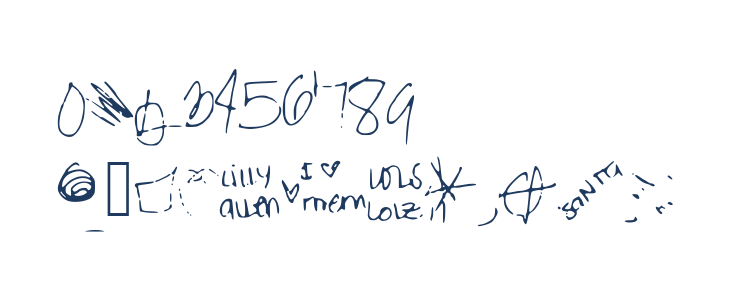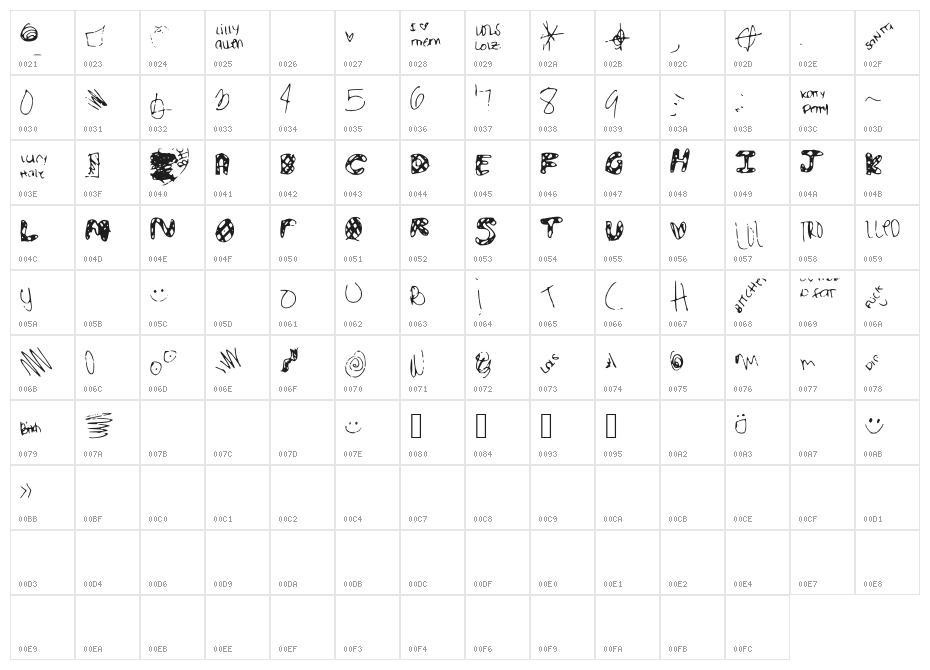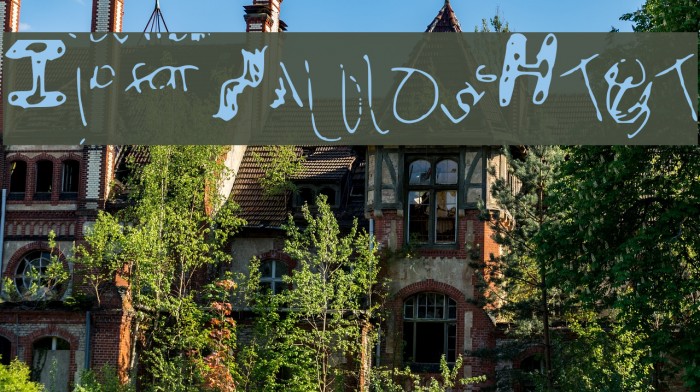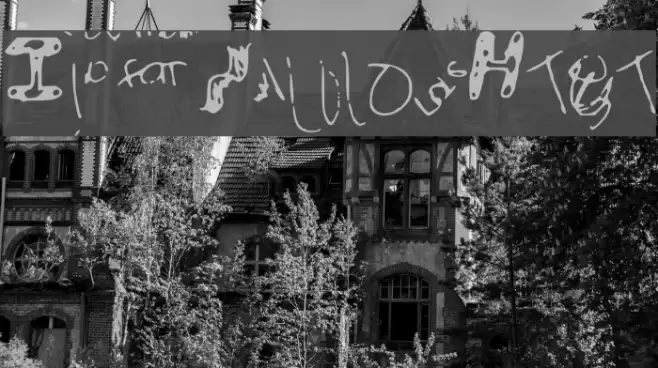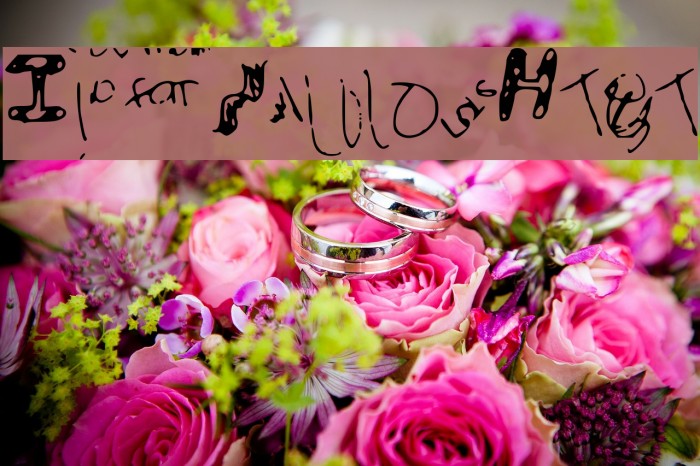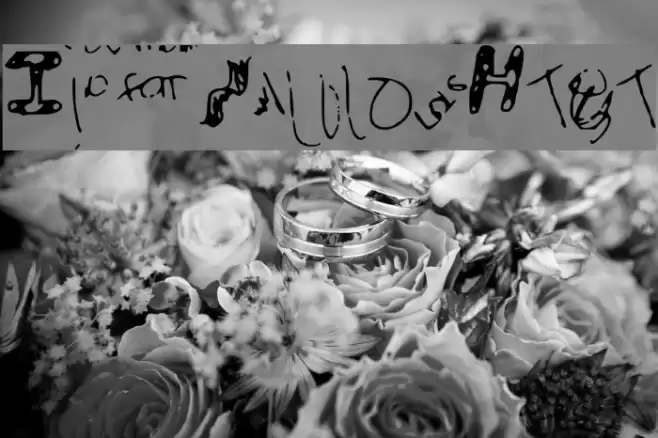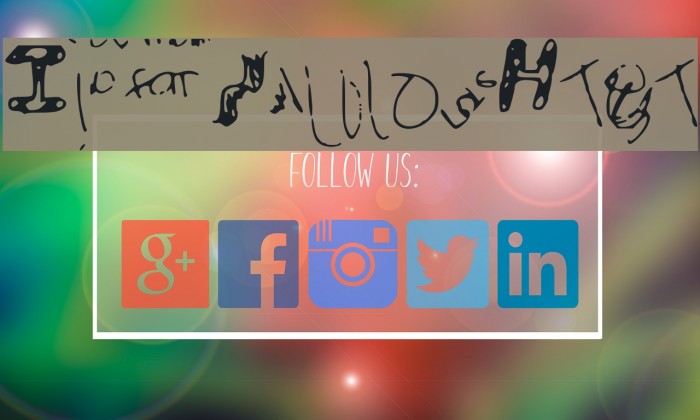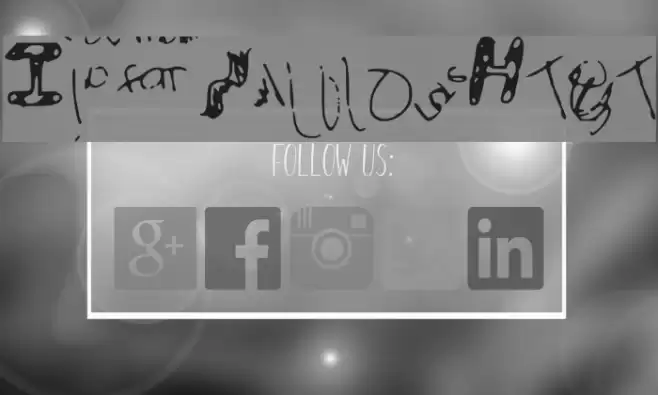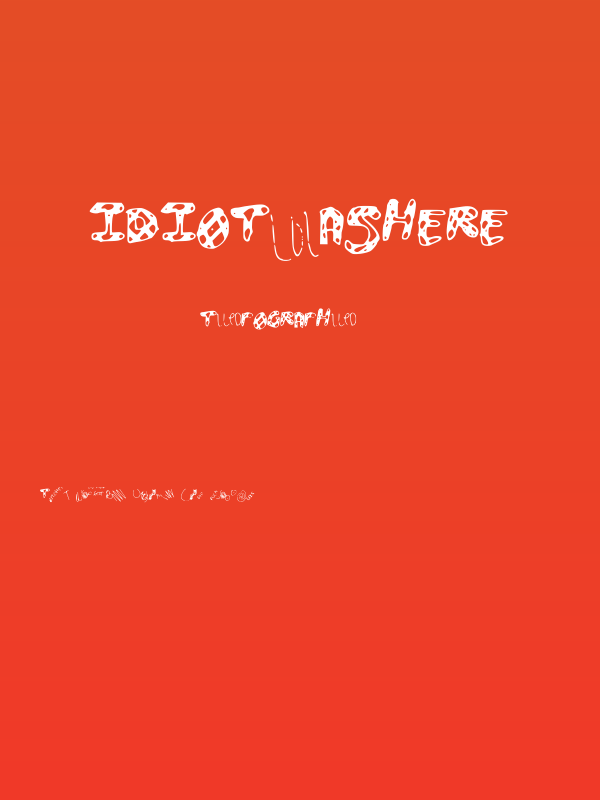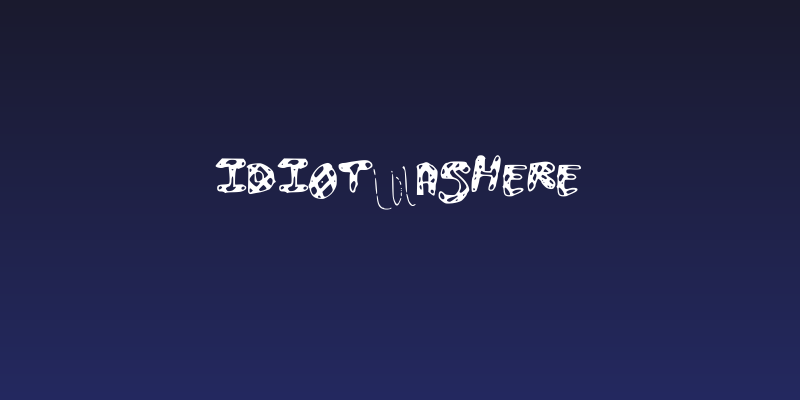
IdiotWasHere Font
IdiotWasHere Description
This font features an eclectic and chaotic design, characterized by irregular shapes and a playful, almost childlike appearance. The uppercase letters are bold with a polka-dot pattern, while the lowercase letters and numbers are scribbled and erratic, resembling doodles. The special characters are similarly whimsical, adding to the overall quirky and unconventional style. The font conveys a sense of spontaneity and creativity, making it suitable for informal and artistic projects.
Overall StyleWhimsical, Playful
Use CaseLogos, Posters, Artistic Designs
Proposed ProjectsIdeal for creative projects such as children's book covers, playful posters, or unique branding materials.